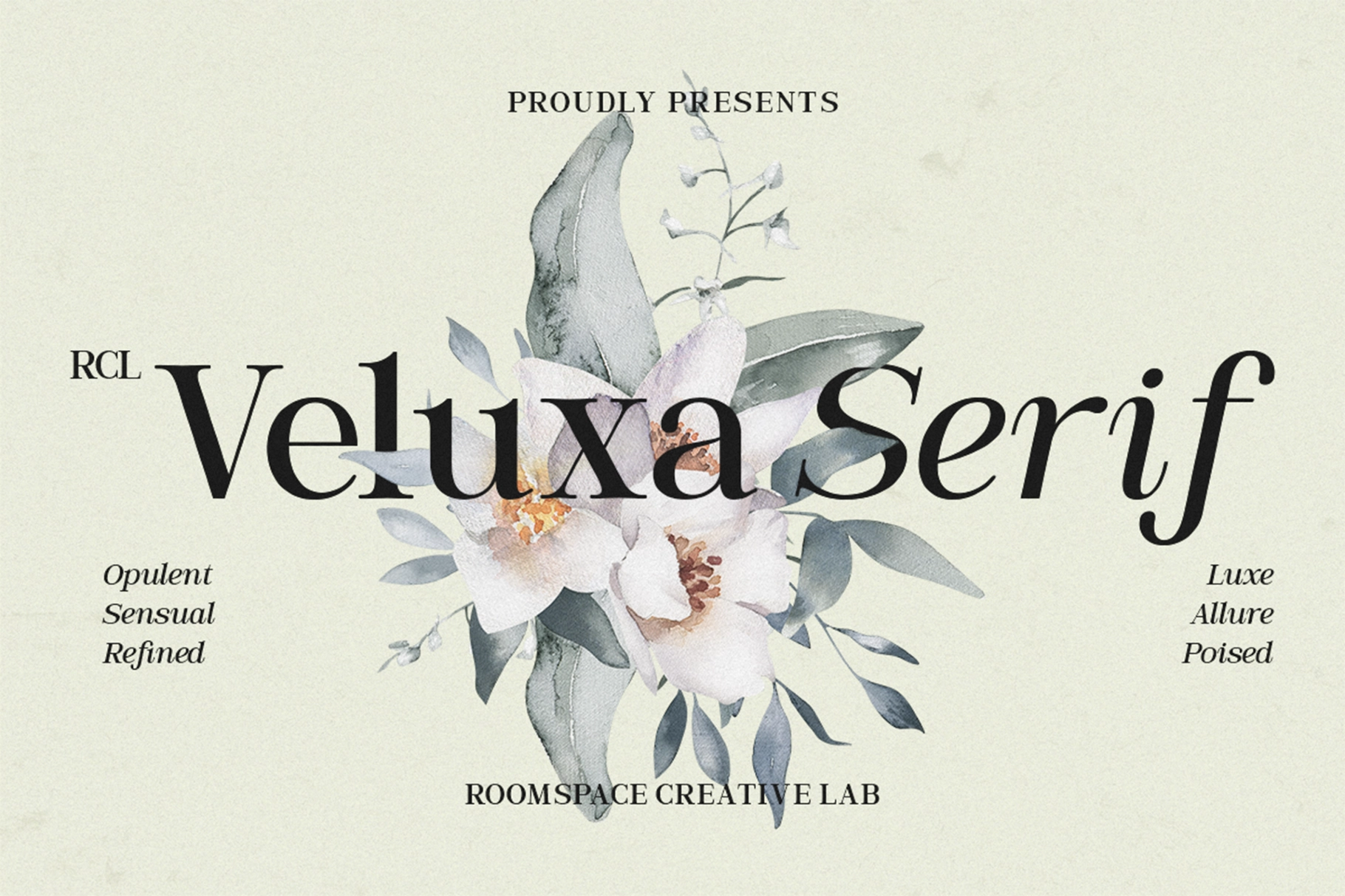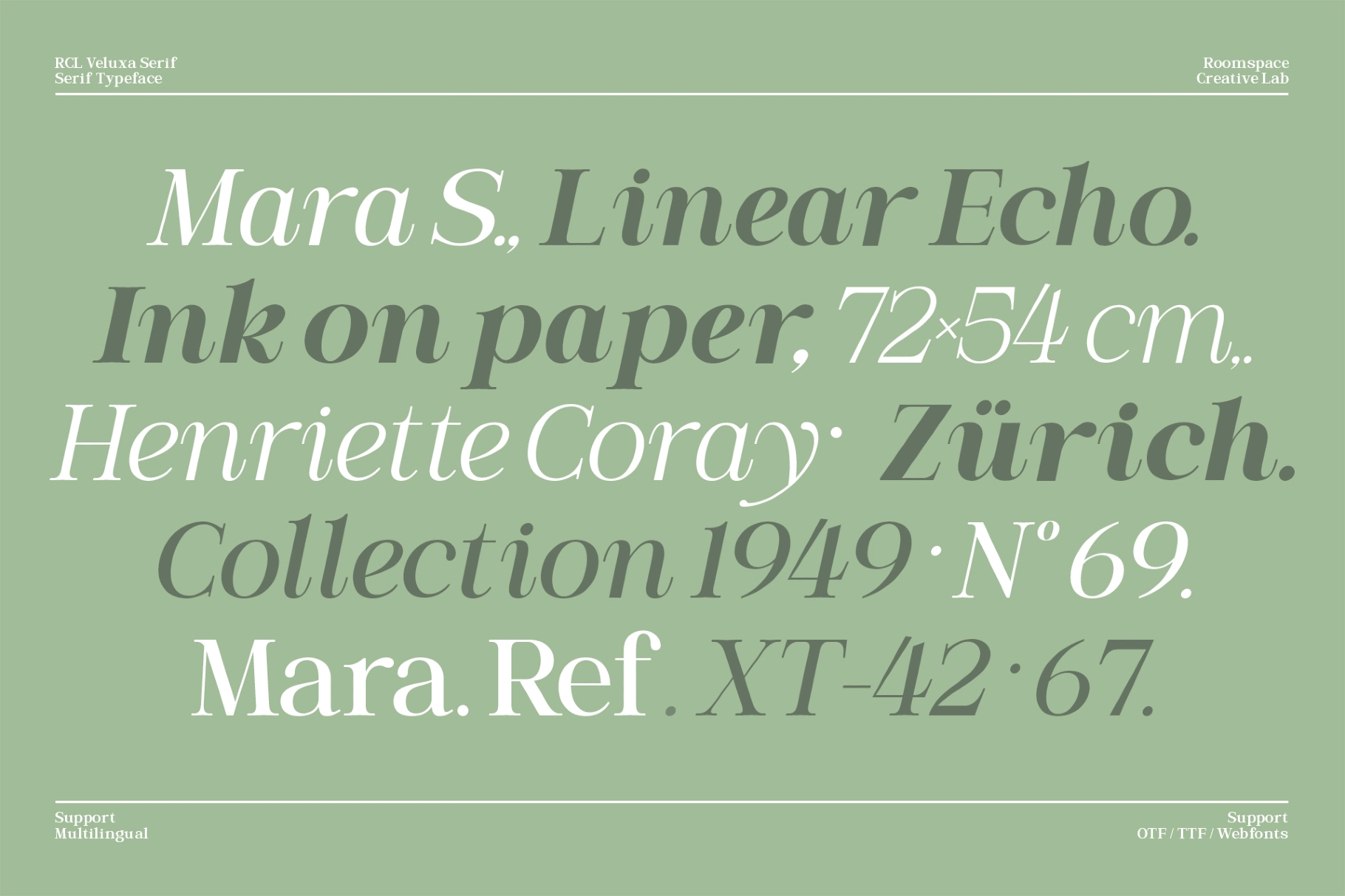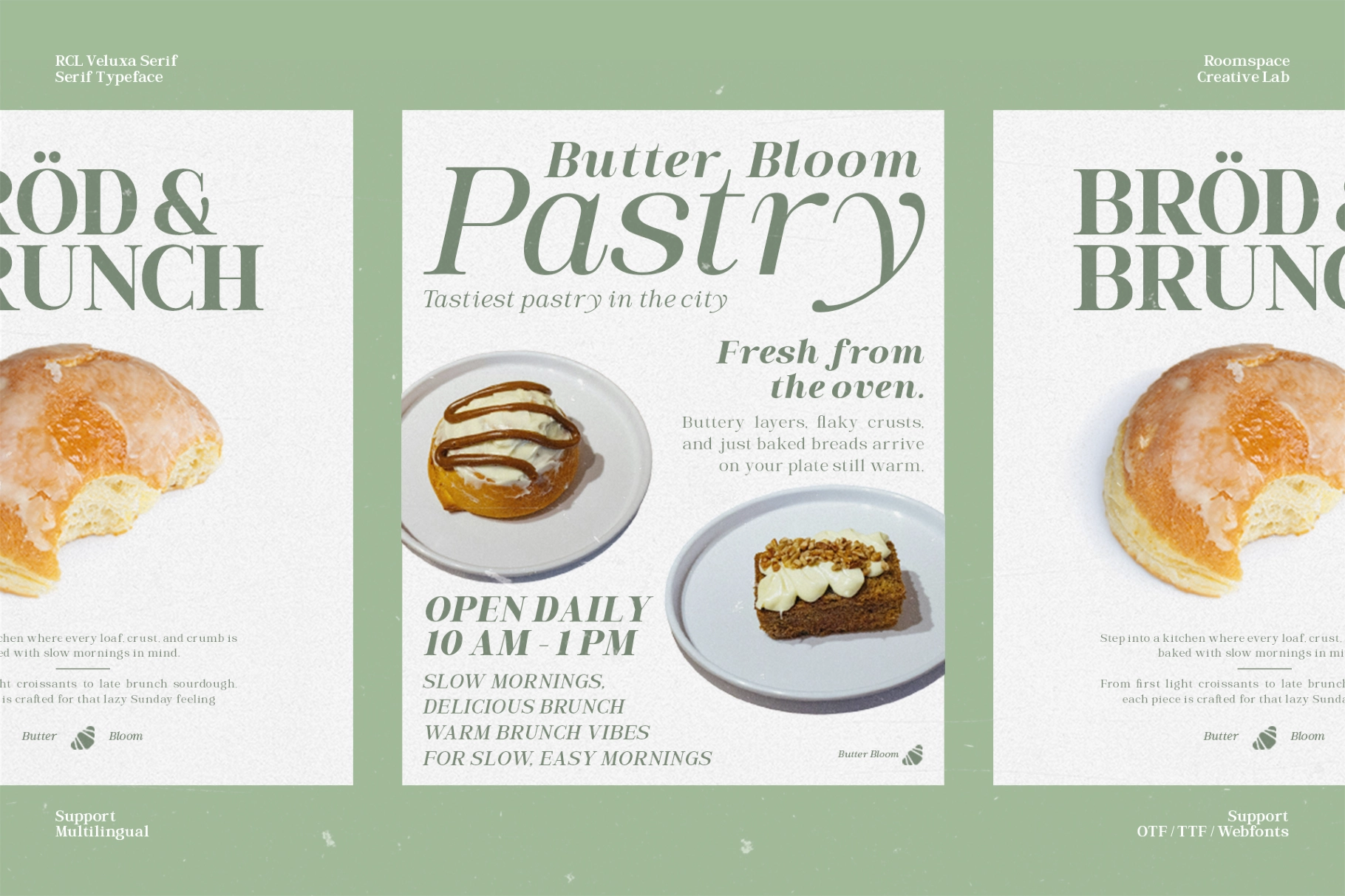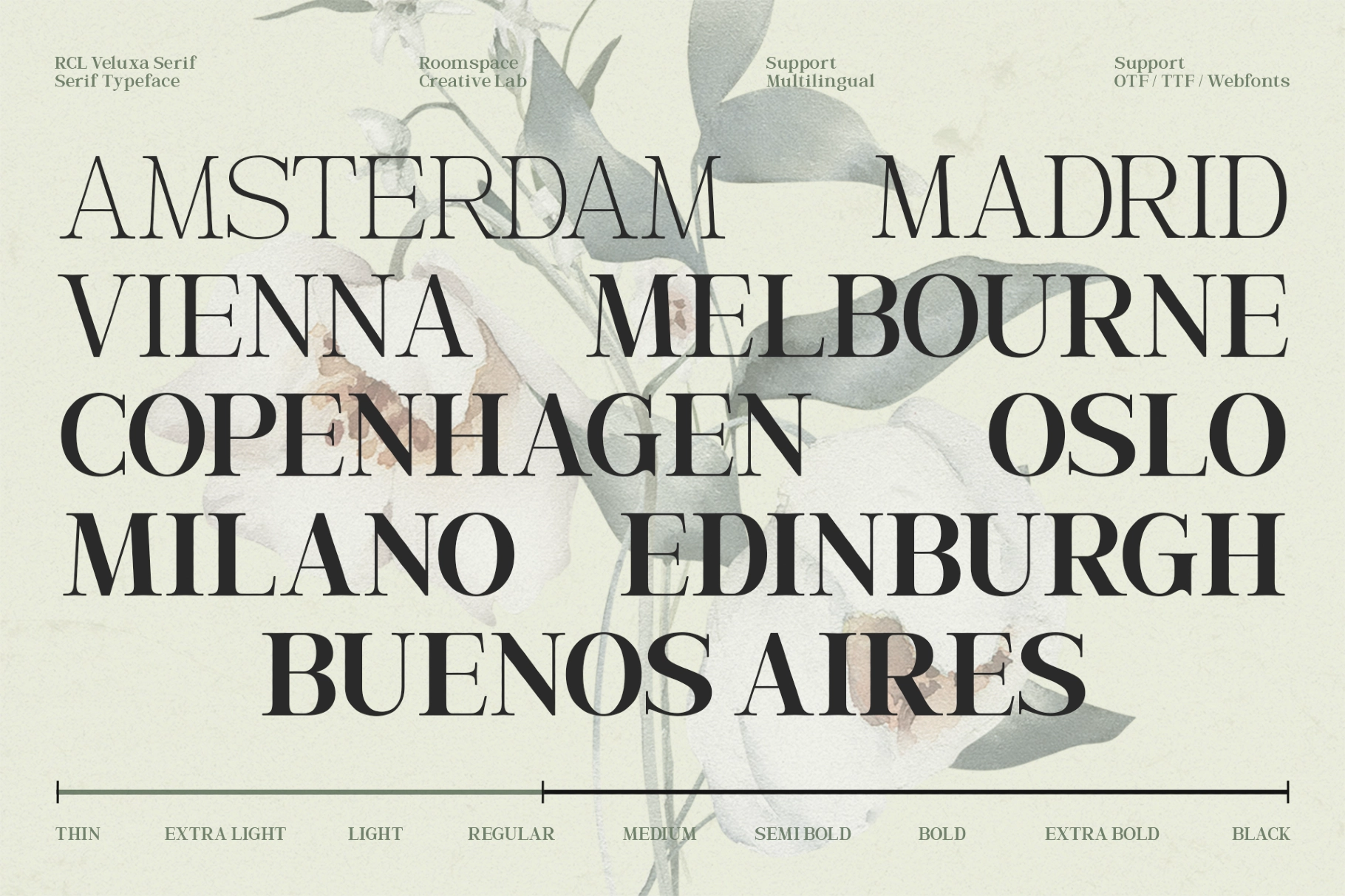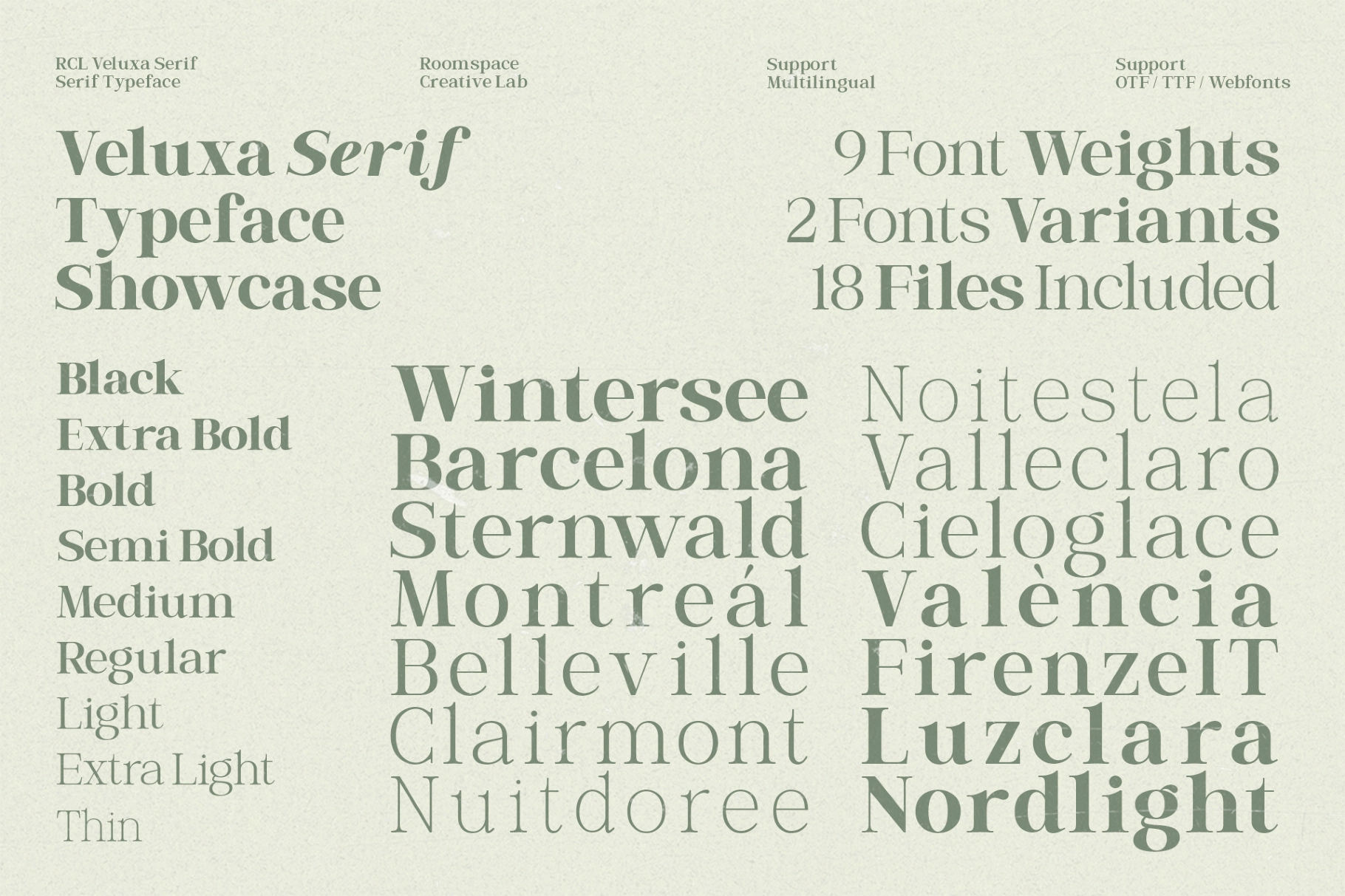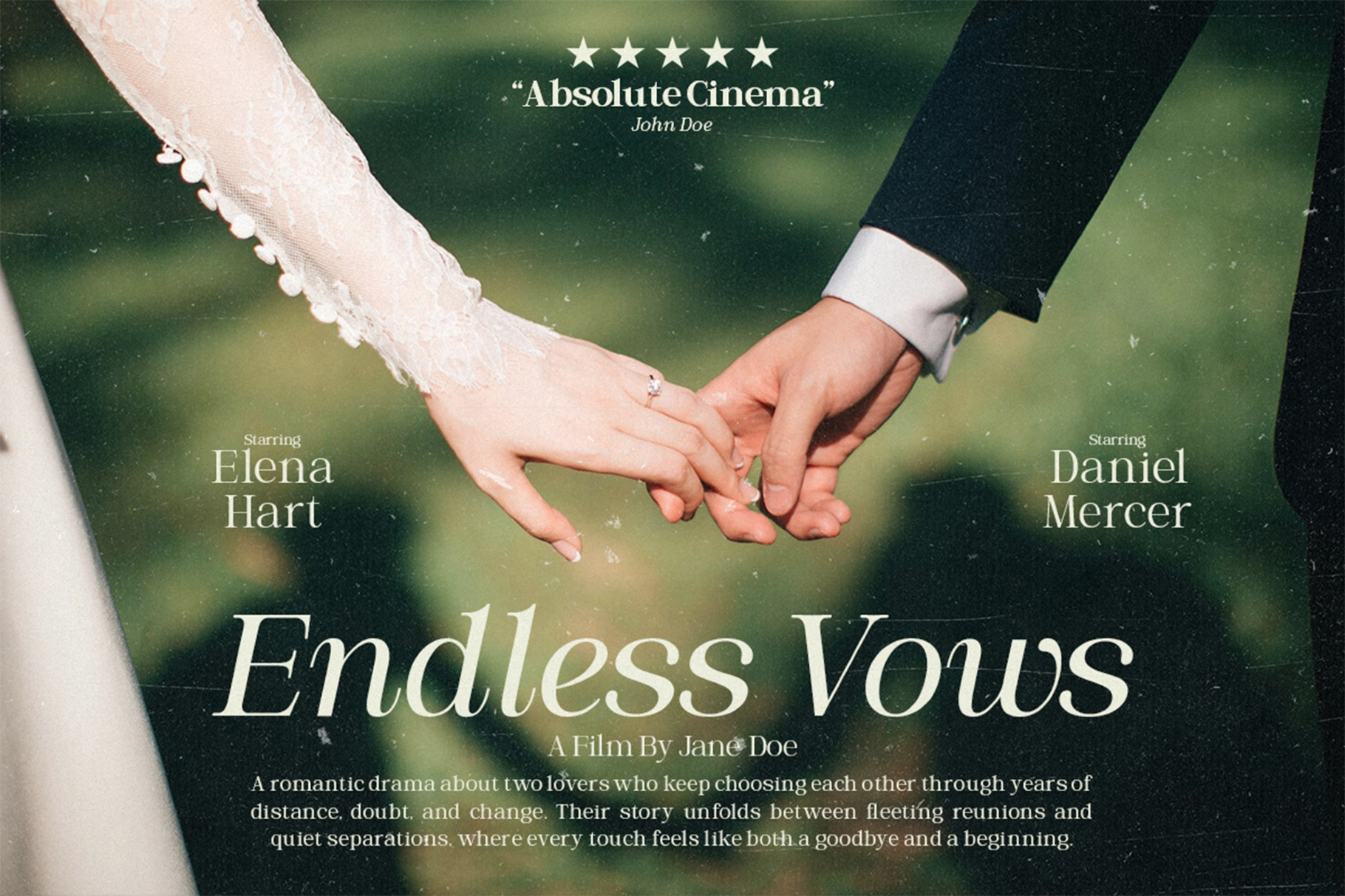
Veluxa Serif – Elegant Branding Serif Font
A refined serif typeface with graceful contrast, polished curves, and a composed editorial voice. Its elegant shapes carry a premium character across quiet luxury layouts, expressive headlines, and identity systems that need clarity with a little drama.
Veluxa is suited for fashion labels, beauty packaging, skincare lines, café branding, boutique logos, magazine layouts, wedding stationery, film titles, social media graphics, lookbooks, invitations, website headers, and premium marketing visuals. The wide weight range gives designers room for delicate captions, confident titles, and full brand systems with consistent typographic control.
- 9 font weights: Thin to Black
- 2 font variants: Regular, Italic
- Uppercase & lowercase